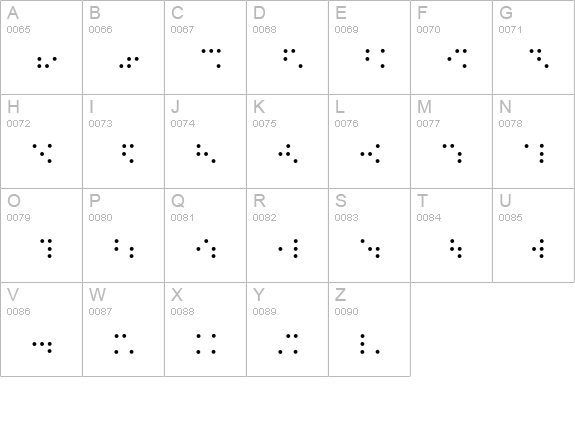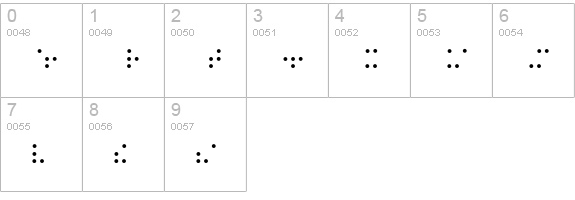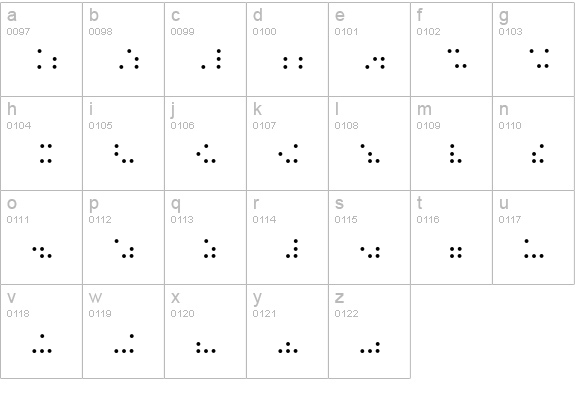
WeirdOne Font Details
Introducing WeirdOne, a truly unique and eccentric font that is bound to make a statement. With its unconventional design and quirky characteristics, WeirdOne is perfect for those looking to add a touch of individuality to their creative projects. This font breaks the mold of traditional typography, offering a delightful blend of whimsy and playfulness. WeirdOne is not only visually captivating, but it also carries a sense of fun and lightheartedness. Its irregular shapes and unexpected curves create a distinct visual rhythm, making it highly versatile for a wide range of design applications. Whether you're designing a logo, creating eye-catching headlines, or crafting attention-grabbing posters, WeirdOne will undoubtedly leave a lasting impression on your audience. But what makes WeirdOne even more remarkable is that it is available for free! Yes, you heard it right. You can freely download this extraordinary font at FontsMarket.com, a leading platform for quality fonts. This means that you can enhance your design projects without any cost, making WeirdOne an absolute must-have for both professional designers and enthusiasts alike. So why settle for ordinary when you can embrace the extraordinary with WeirdOne? Don't miss out on the opportunity to infuse your designs with a touch of whimsy and creativity. Download WeirdOne today, and let your imagination run wild.